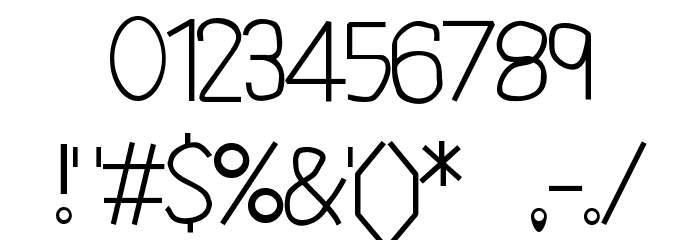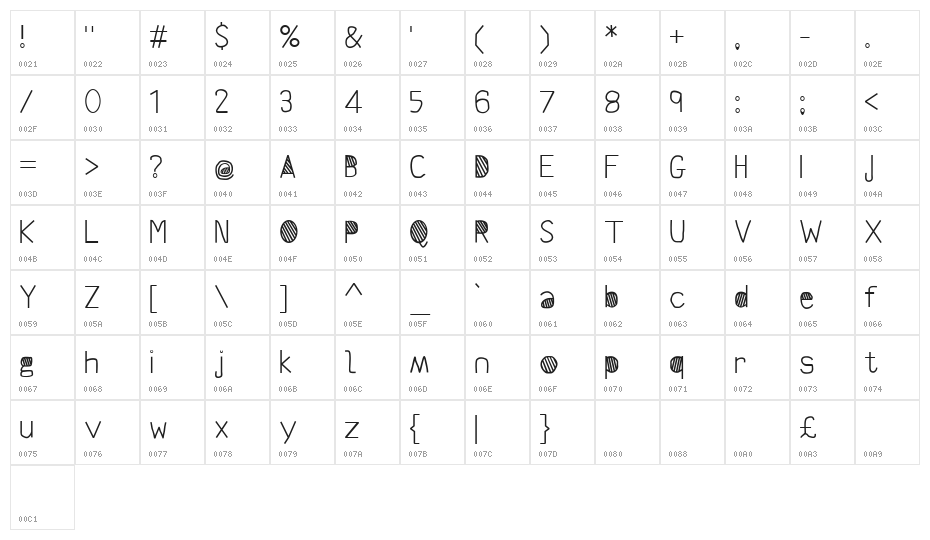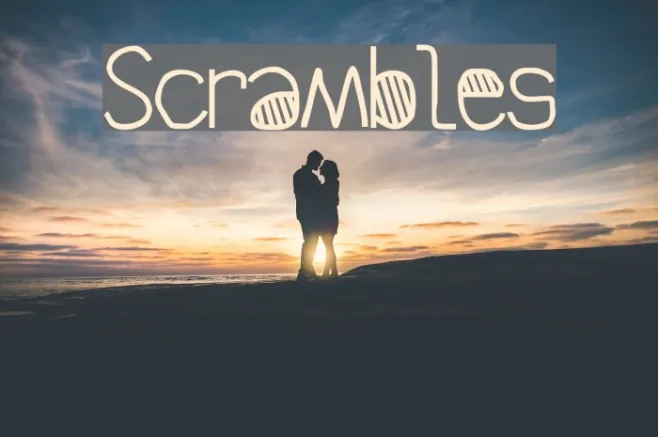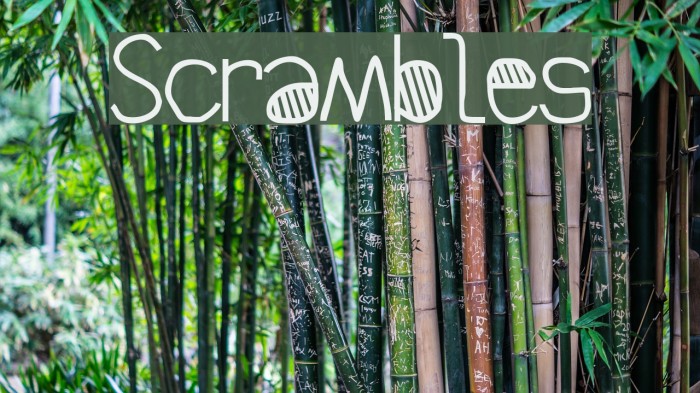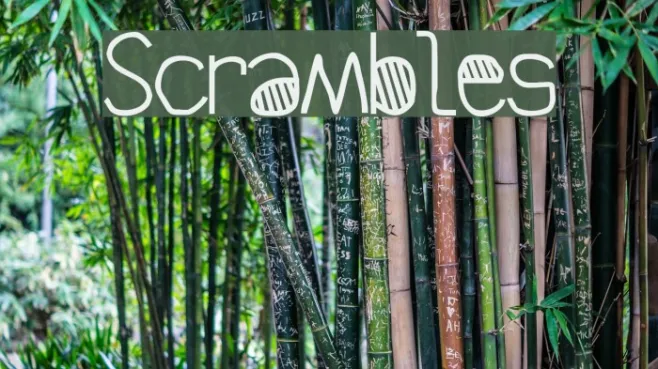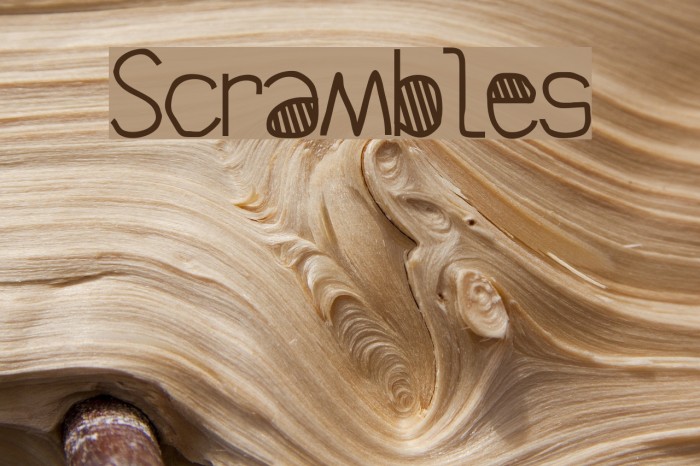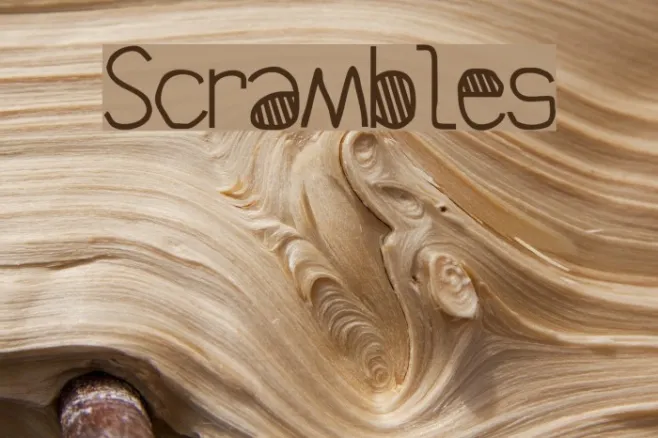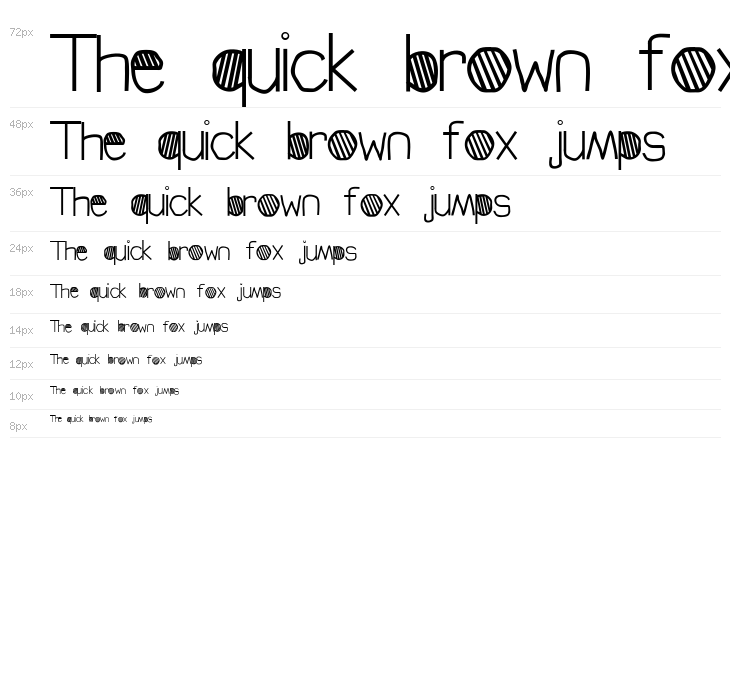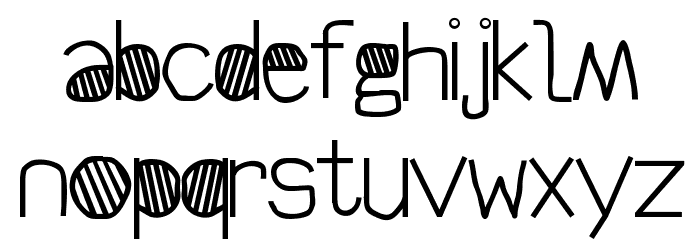
Scrambles Font
Scrambles Description
This font features a unique blend of geometric and playful elements, characterized by its distinct use of lines and patterns within certain characters. The uppercase letters exhibit a modern, minimalist style with some letters incorporating diagonal stripes, adding a dynamic visual interest. The lowercase letters maintain a consistent geometric form, with a few incorporating similar striped patterns. Numbers and special characters follow the same design principles, ensuring uniformity across the font. The overall appearance is clean yet quirky, making it suitable for creative and contemporary projects.
SCRAMBLES UPPERCASE
SCRAMBLES LOWERCASE
SCRAMBLES OTHER CHARS
| Proposed Projects | Ideal for branding, posters, and creative projects that require a modern and playful touch. |